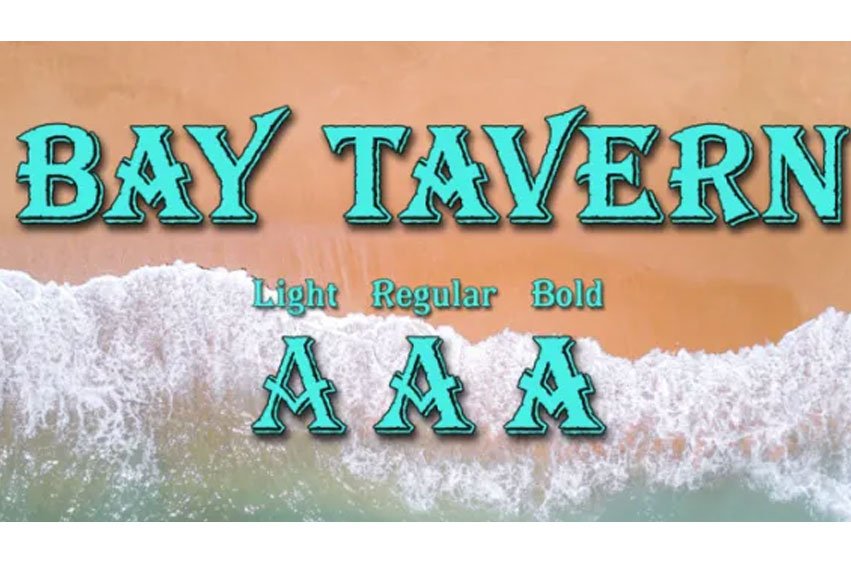
Bay Tavern Font is the first weathered version of our Tavern font that’s based on Algerian.
With three weights, open faced and outline versions to choose from you’re sure to find the right style for your new project, restaurant menu, logo, t-shirt design or Pirate costume party.